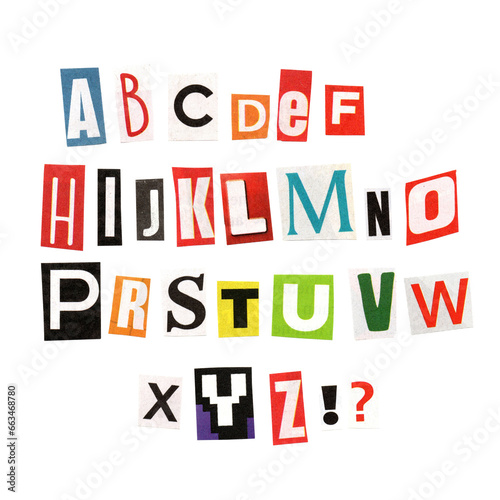
Alphabet collage. Newspaper letters. Colorful cut out ransom letters alphabet. Hand made font. Latin letters. Elements for text. Anonymous note font. Alphabet cut out from a magazine. Scrap letters